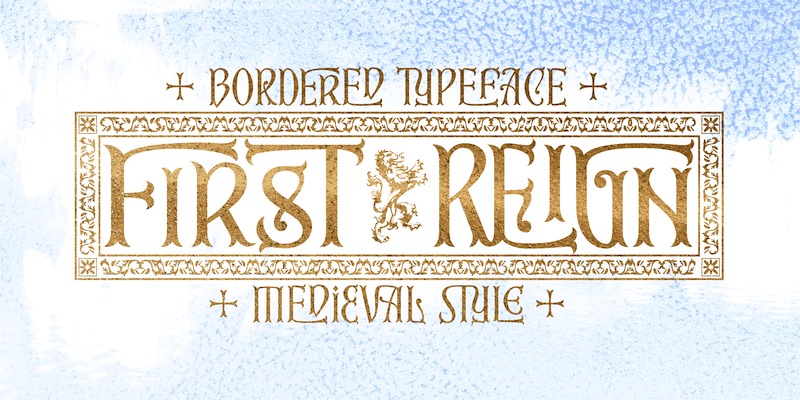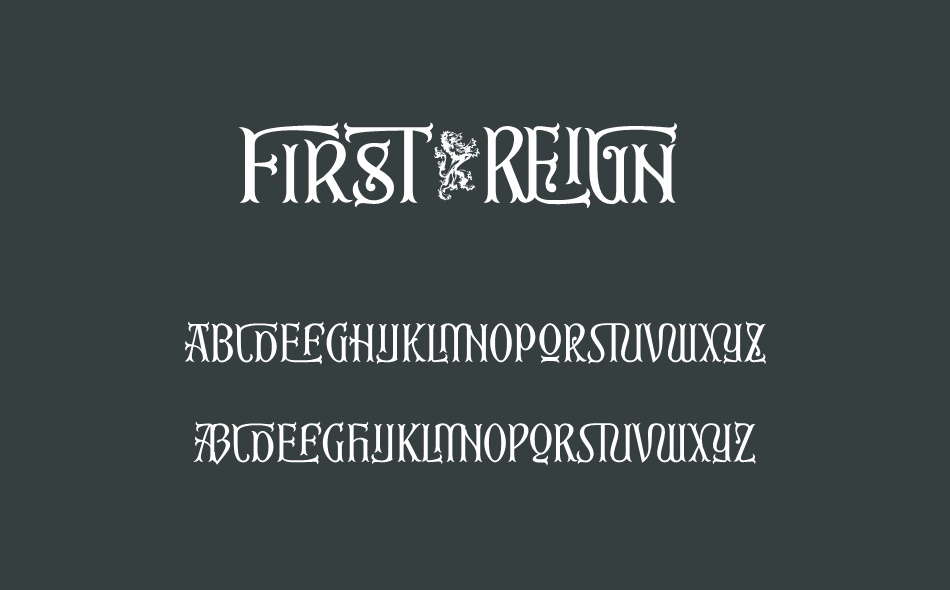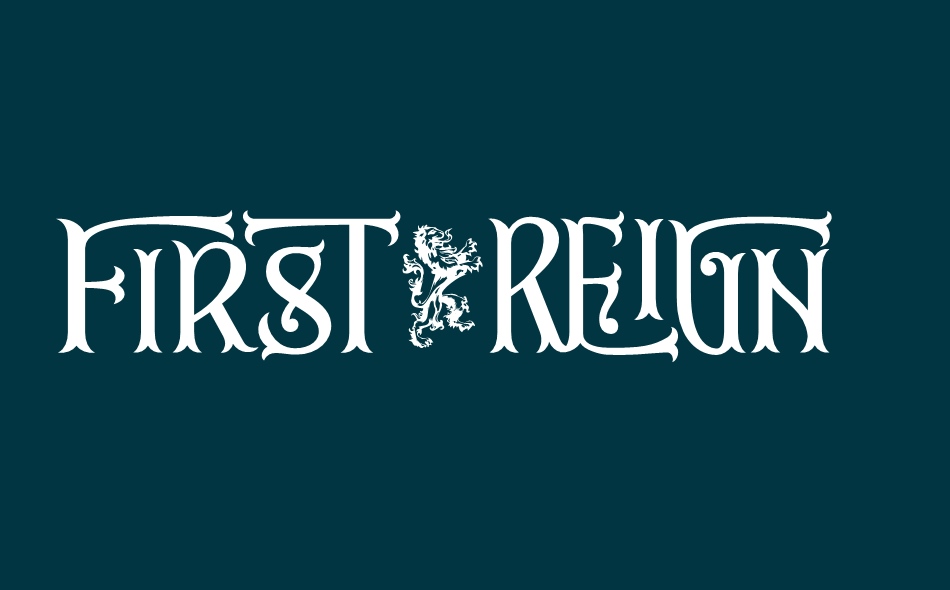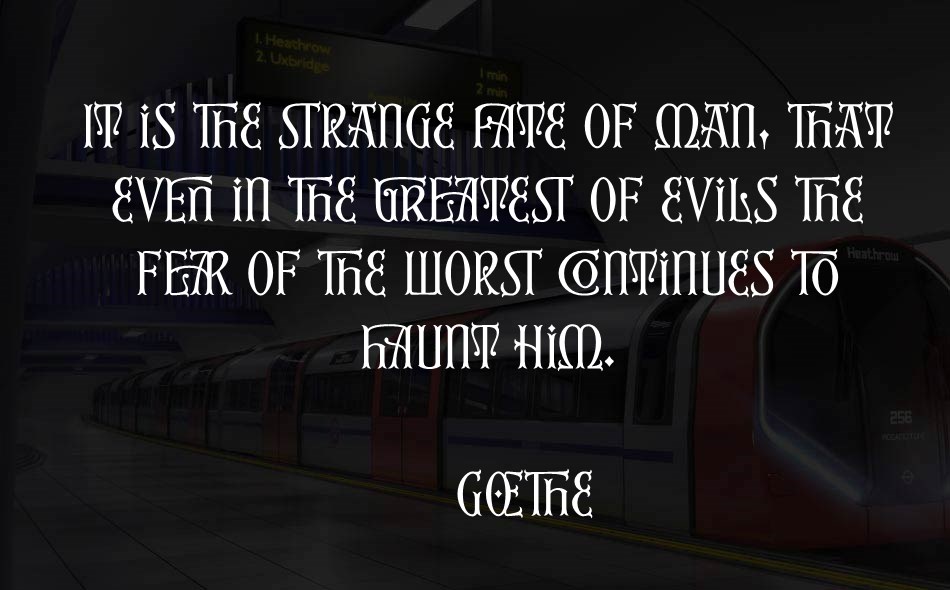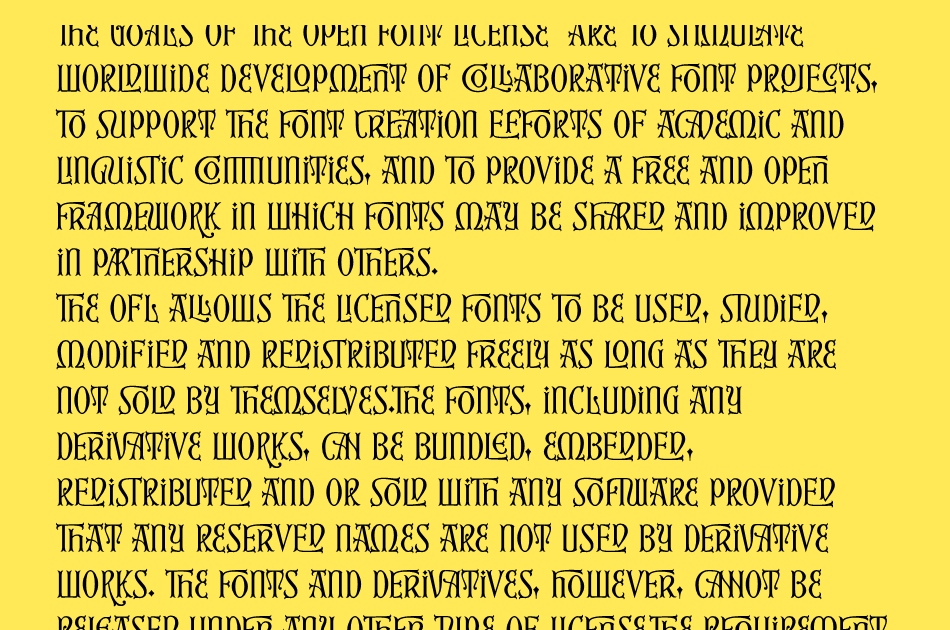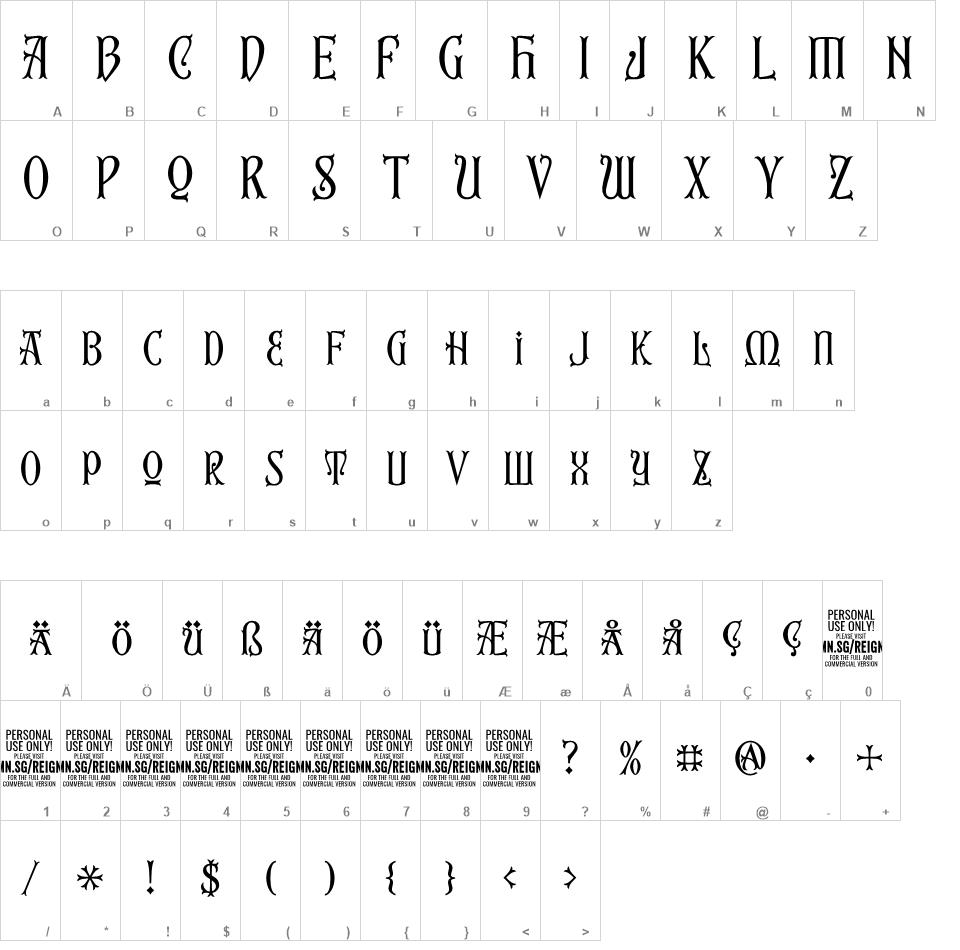
First Reign font
To make heraldic symbols, copy these icons: 🐉 🐎 👑 🗡 🦁 🦅 🦌 + ♖ ✝ ⚓ * ⚔
Alternatively write %A %B %C ... etc to create the heraldry. (Download required.)
Dragon, Horse, Crown, Sword, Eagle, Deer, Cross, Anchor are some of the logos.
Use [ ] for side borders.
Example: [Royal⚔Thrones]
First Reign is a decorative medieval typeface.
With borders and ornaments, this swirly uppercase typeface of extreme variability brings us to glorious worlds in the golden times of epic knight sagas.
First Reign is the typeface of a Royal House, of vikings, kings and queens.
Use it for a Middle Ages game, a fantasy headline, or as a logotype for anything of historical theme.
With usage in any modern software, the letters will automatically overlap and embrace in an elegant way.
To make heraldic symbols, copy these icons: ?? ?? ?? ?? ?? ?? ?? + ? × ? ? * ? † ‡
Alternatively write %A %B %C ... etc to create the heraldry. (Download required.)
Dragon, Horse, Crown, Sword, Eagle, Deer, Cross, Anchor are some of the logos.
Use [ ] for side borders.
Example: [Magic?Thrones]
The First Reign family consists of four beautiful styles:
Decorated capital font provided in Thin, Medium and Bold, plus a Border style.
The font is built with advanced OpenType functionality and has a guaranteed top-notch quality, containing stylistic and contextual alternates, ligatures and more features; all to give you full control and customizability.
It has extensive lingual support, covering Greek and Cyrillic, as well as all Latin-based languages, from North Europe to South Africa, from America to South-East Asia.
It contains all characters and symbols you'll ever need, including all punctuation and numbers.